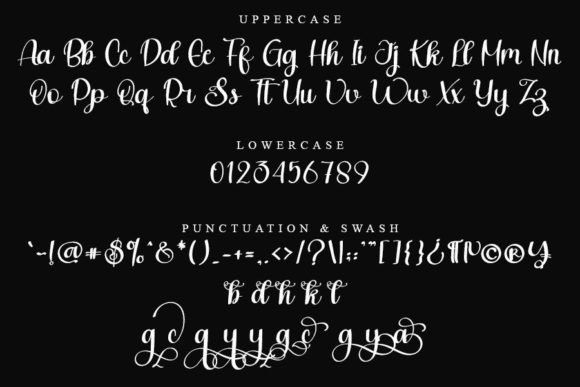
About Magic Font
Magic is a truly captivating and refined handwritten font, a testament to the artistry of typography. Its beauty lies in its graceful strokes and elegant curves, making it a perfect choice for a wide array of design applications. Whether you’re crafting a logo, developing a brand identity, designing invitations, curating stationery, conceptualizing wedding materials, or engaging with your audience through social media posts, Magic brings an unparalleled level of sophistication and modernity to your creative endeavors.
The font’s timeless charm is not just skin deep; it extends to its technical features. Magic is PUA encoded, a distinctive attribute that opens the doors to a treasure trove of amazing glyphs and ligatures. This encoding system ensures easy access to a variety of artistic elements, allowing you to personalize and enhance your designs effortlessly. The flexibility afforded by PUA encoding empowers you to experiment with different combinations, giving your work a unique and bespoke touch.
Imagine creating a logo that not only captures attention but also resonates with the essence of your brand. Magic’s handwritten allure can infuse warmth and personality into your visual identity, creating a lasting impression on your audience. For wedding designs, the font brings a touch of romance and sophistication, setting the perfect tone for a memorable celebration. When it comes to social media posts, Magic adds a level of refinement to your content, making it stand out in the crowded digital landscape.
As you delve into the vast possibilities that Magic offers, you’ll find that each glyph and ligature is a brushstroke on the canvas of your creativity. This font transcends traditional typography, becoming a medium through which your ideas come to life with elegance and flair. Its PUA encoding is not just a technical feature; it’s a key that unlocks the full potential of Magic, allowing you to weave a narrative that speaks volumes about your style and vision.
In a world saturated with design choices, Magic stands out as a versatile and sophisticated font that elevates your creative expression. Embrace the magic within each letter, explore the nuances of its design, and let it be the enchanting thread that weaves through all your design endeavors. With Magic, your creations are not just seen; they are experienced, leaving a lasting impression on anyone who beholds them.